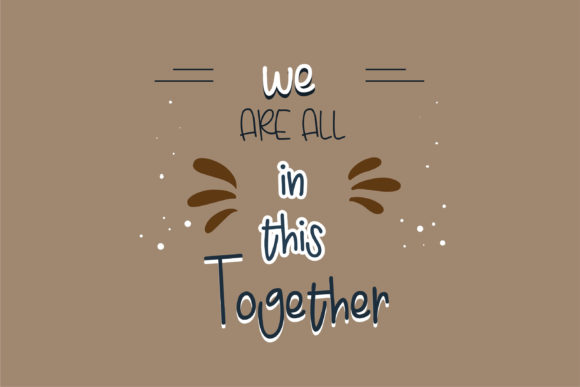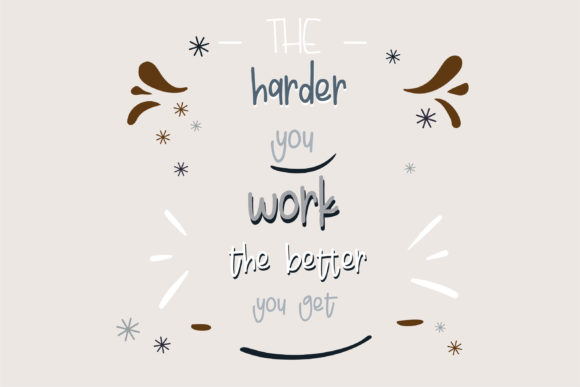
PN Rootbeer Font
db-ku.com - Script & Handwritten -- This simple, hand-written font is a casual print with an enlarged uppercase. It looks quirky and fun, perfect for your most creative ideas!